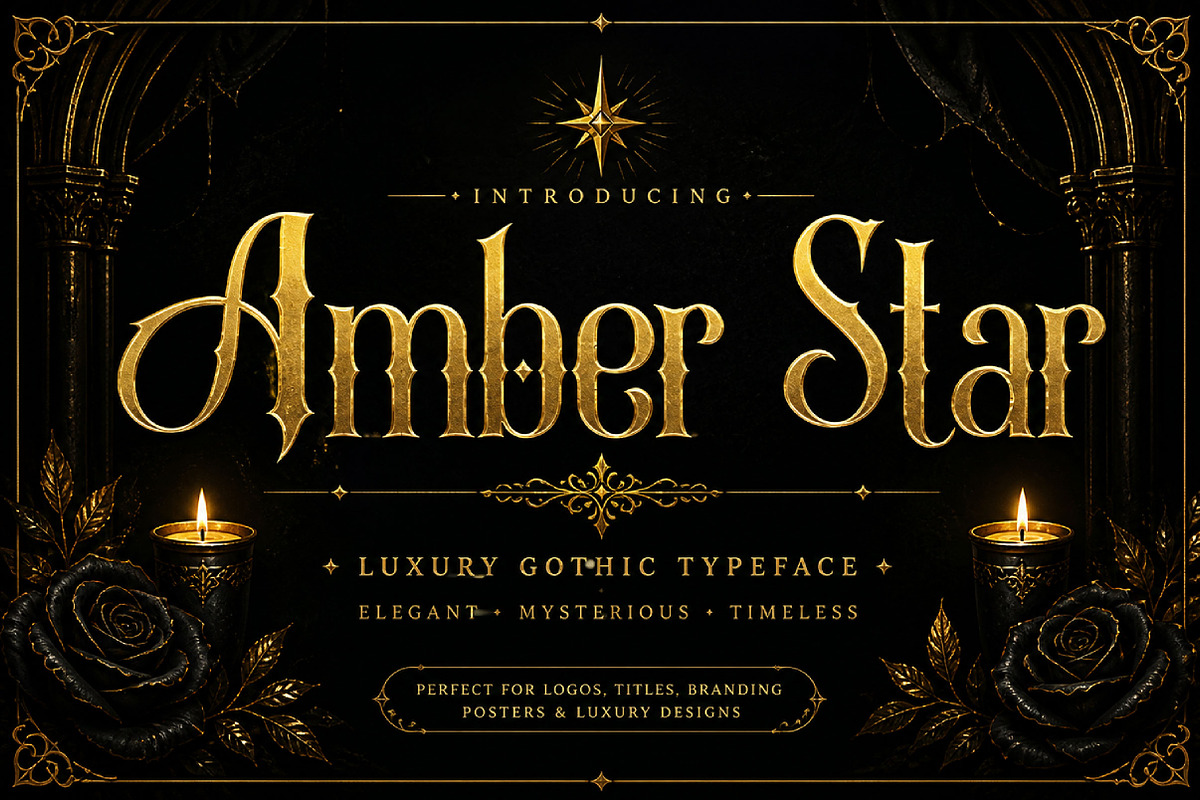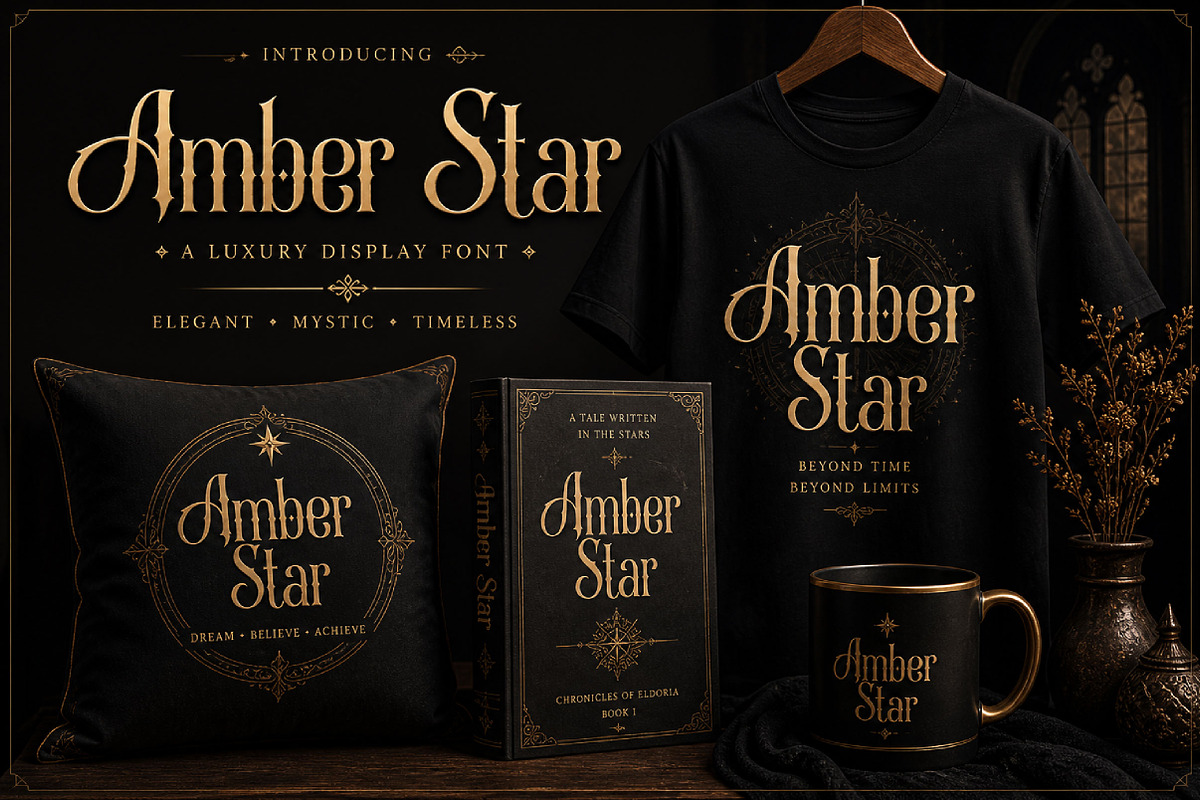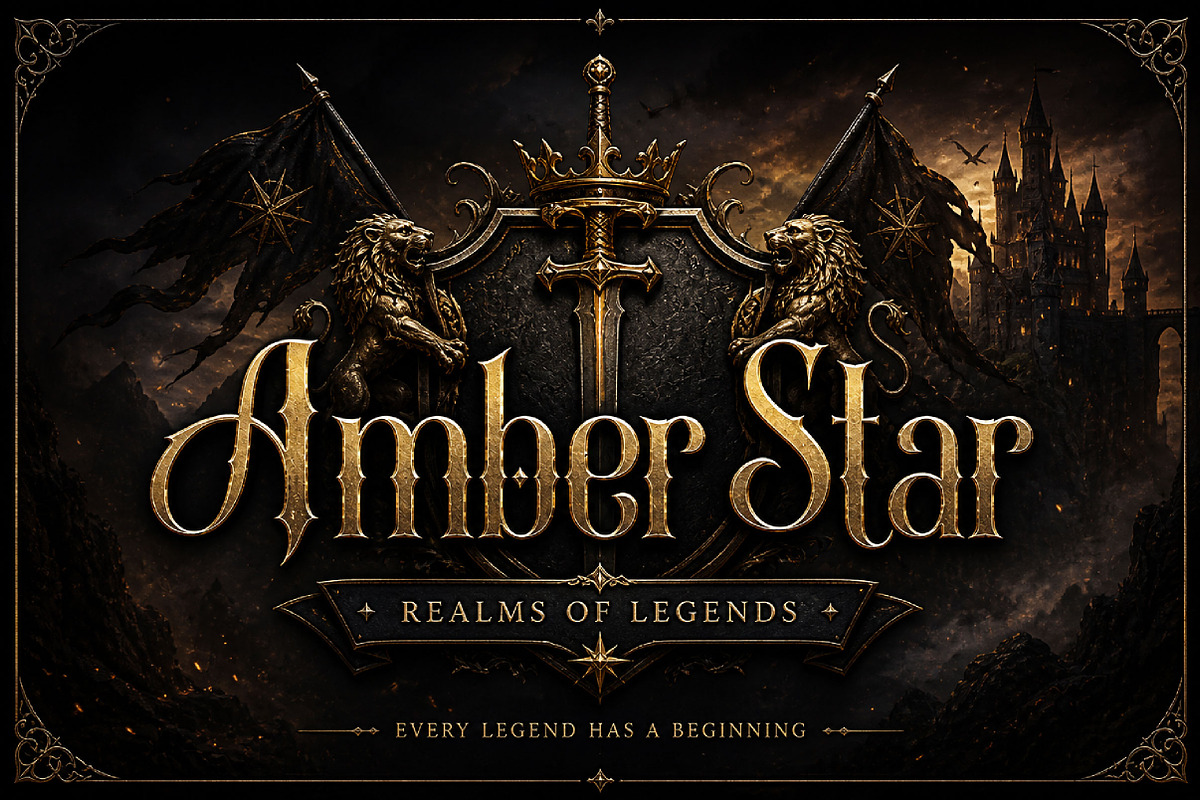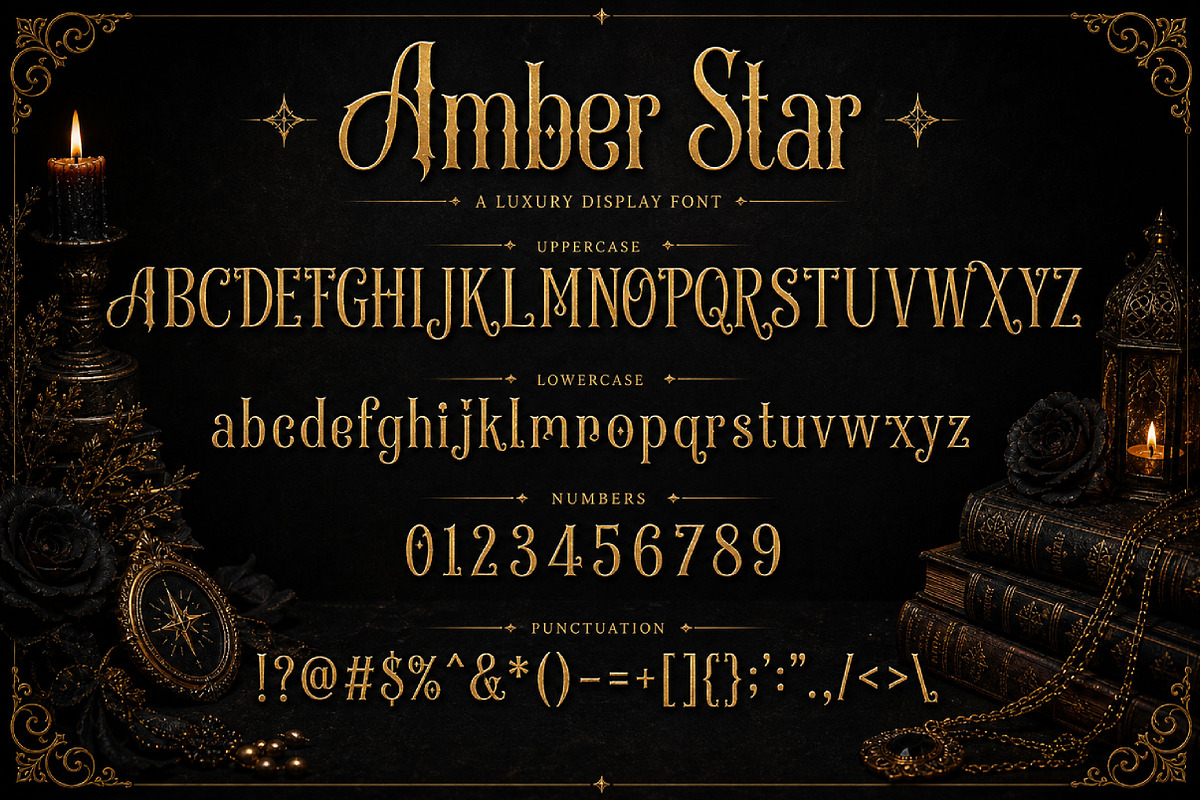
Amber Star
Amber Star – Elegant Vintage Serif Font
Amber Star is an elegant and stylish vintage serif font, perfect for branding, logos, editorial design, invitations, and sophisticated creative projects.
Amber Star is a refined serif display font that blends classic elegance with a touch of vintage charm. With its graceful curves, stylish letterforms, and subtle decorative details, this font creates a timeless and luxurious look.
Its sophisticated style makes Amber Star perfect for projects that require a premium and artistic identity. Whether you are designing branding, logos, editorial layouts, wedding invitations, packaging, or social media graphics, this font adds a sense of class and personality to your typography.
The balanced serif structure ensures readability while maintaining a decorative and distinctive presence. Suitable for both print and digital use, Amber Star is an excellent choice for designers who want a font that feels elegant, vintage, and beautifully crafted.
Luxury branding and logos
Editorial and magazine design
Wedding invitations
Product packaging
Beauty and fashion projects
Greeting cards
Website headers
Premium stationery
Elegant typography
Uppercase letters
Lowercase letters
Elegant serif style
Vintage-inspired details
Smooth and refined look
Perfect for display and branding use